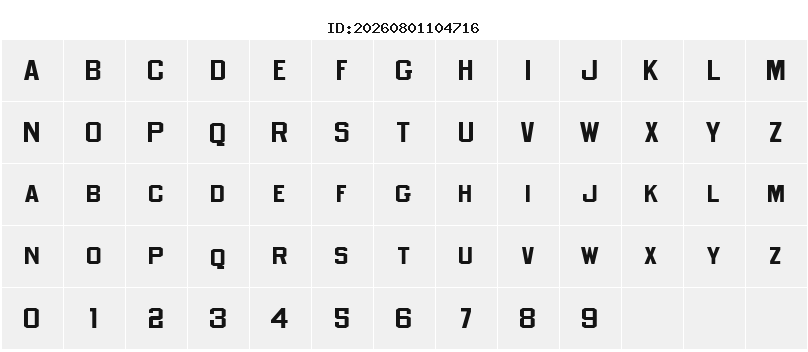
LHF Old Block RegBold Preview
• Font Name: LHF Old Block RegBold
• Font ID: LHF Old Block RegBold
• Full Font Name: LHF Old Block RegBold
• PostScript Name: LHFOldBlockRegBold
About LHF Old Block RegBold.ttf
LHF Old Block RegBold.ttf is a modern, elegant sans-serif font designed for ultimate readability and visual harmony. Perfect for branding, headlines, web design, and print materials.